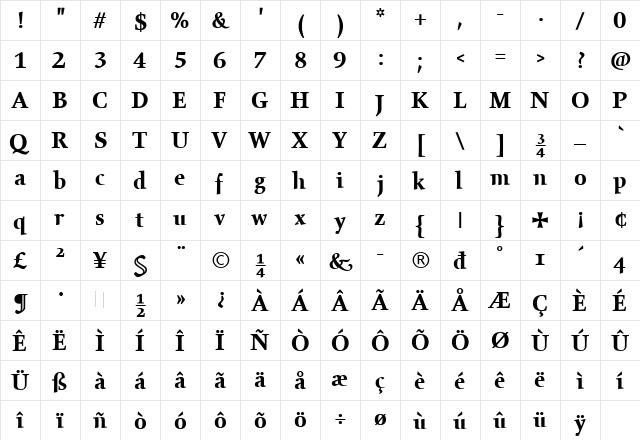
Gilgamesh Bold Regular
Design Context for Gilgamesh Bold Typeface
Gilgamesh Bold offers clean, dependable letterforms without strong stylistic allegiance, making it a practical choice for designers who need flexibility. The heavy weight commands attention and anchors typographic hierarchies.